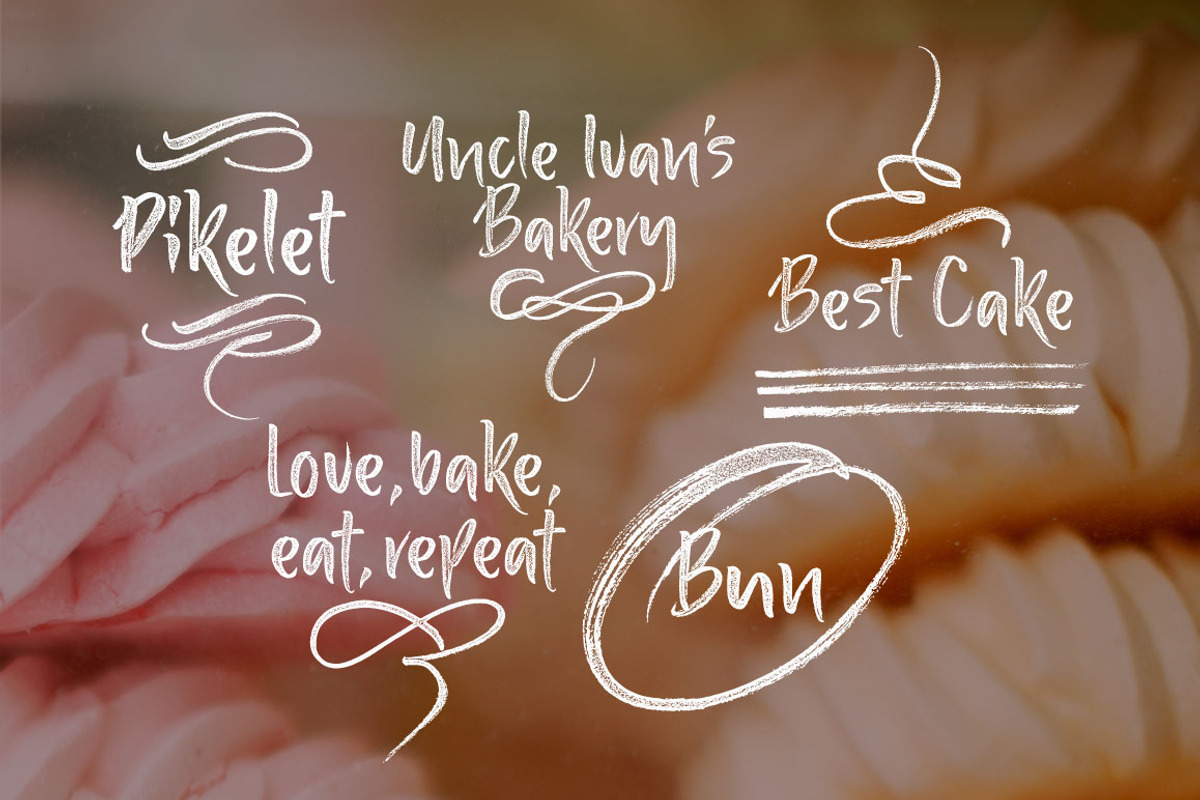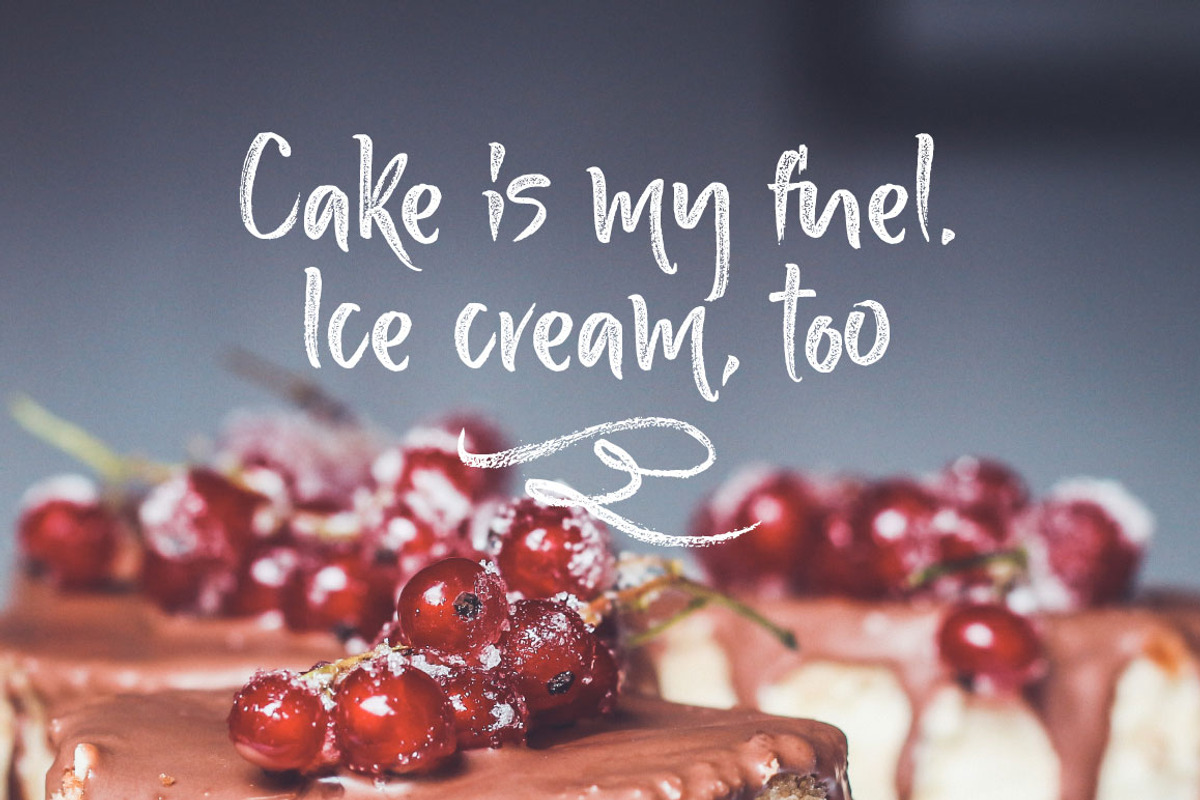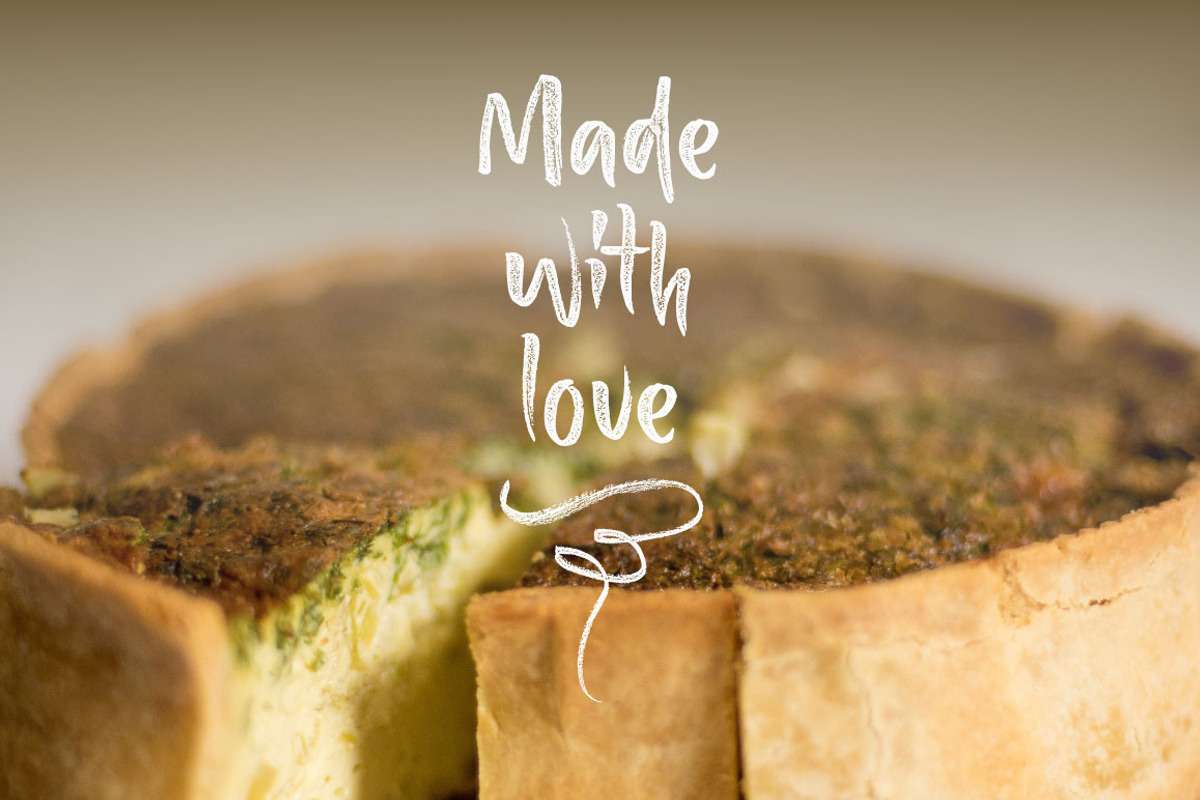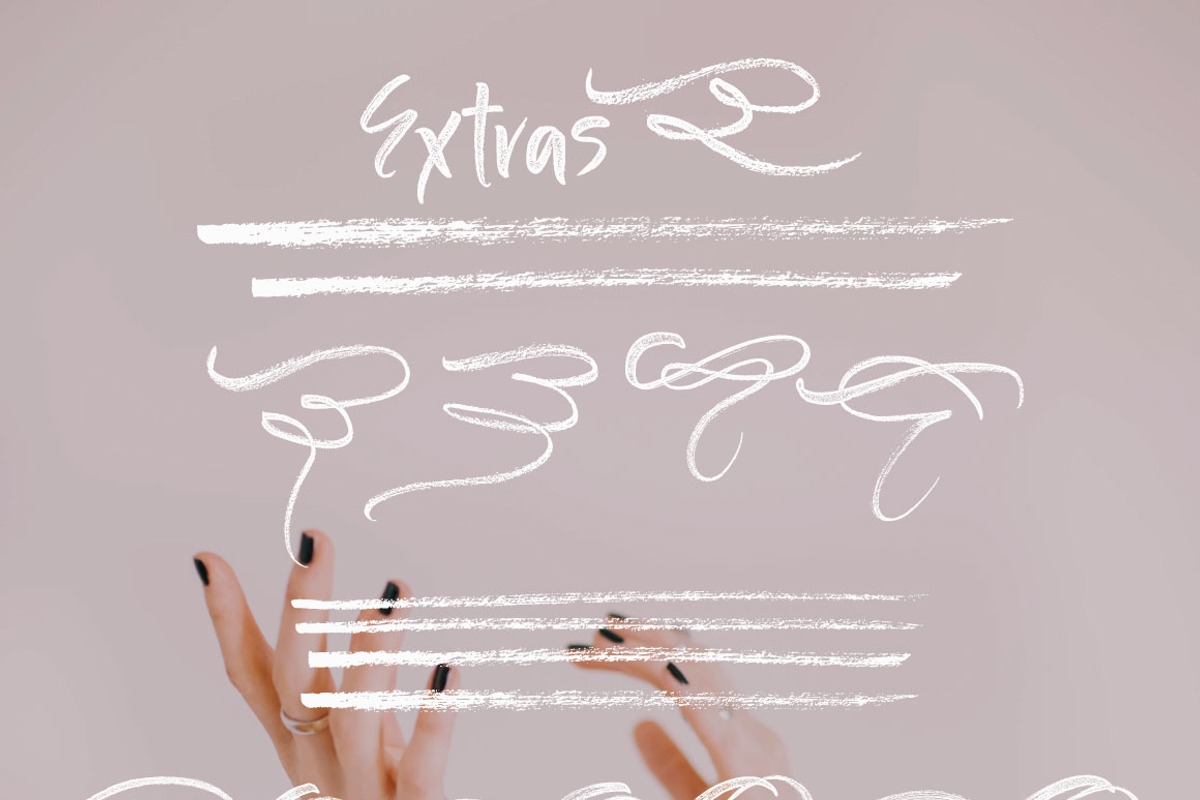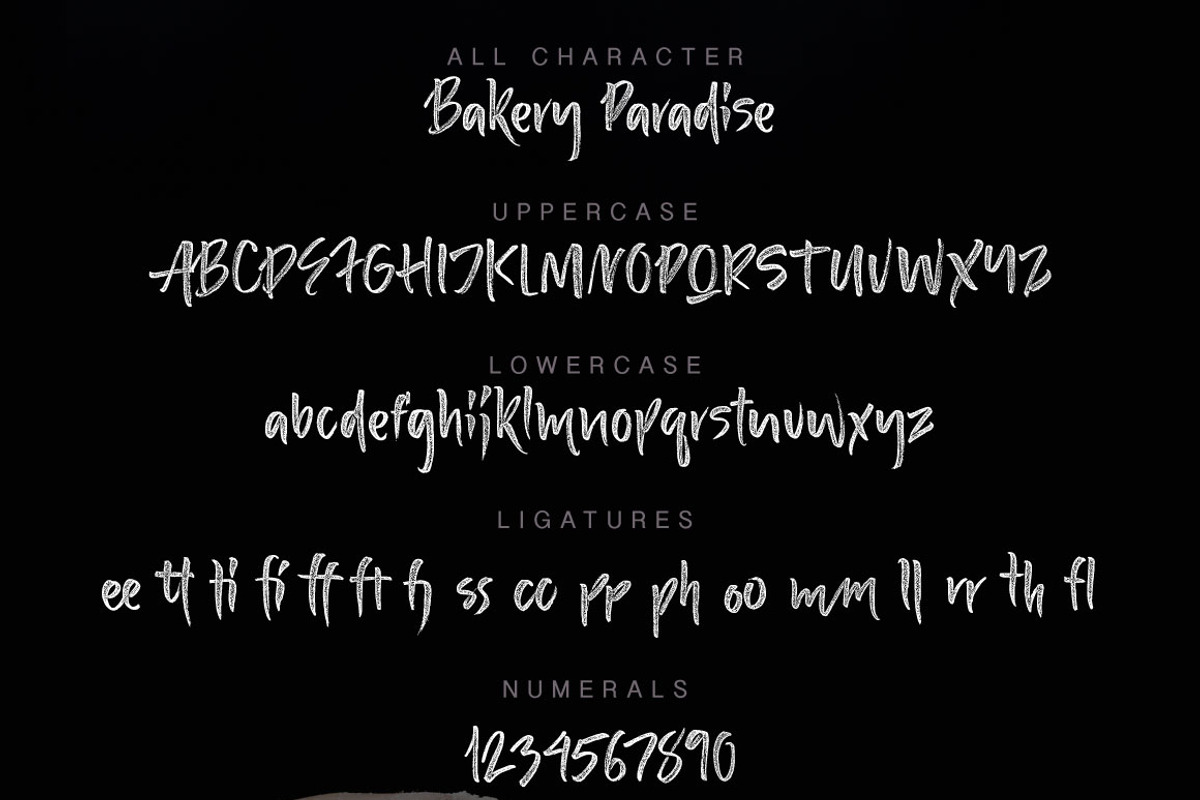
Bakery Paradise Handwritten Font
Bakery Paradise Handwritten Font by Vera Holera is a font selected for branding, posters, packaging, typography.
- Also you'll receive a set of flourish which helps you create logo with bright unique character.
Why Bakery Paradise Handwritten Font is worth a look
Bakery Paradise Handwritten Font by Vera Holera fits naturally into Branding, posters, packaging, typography.